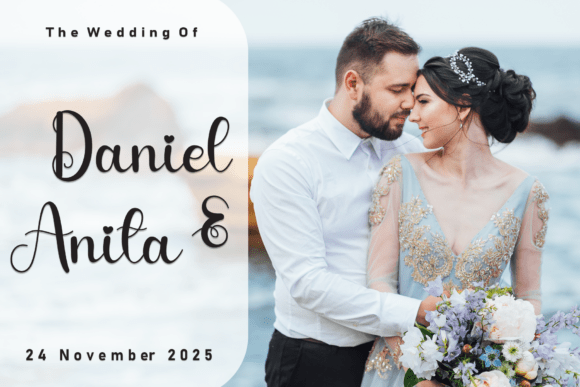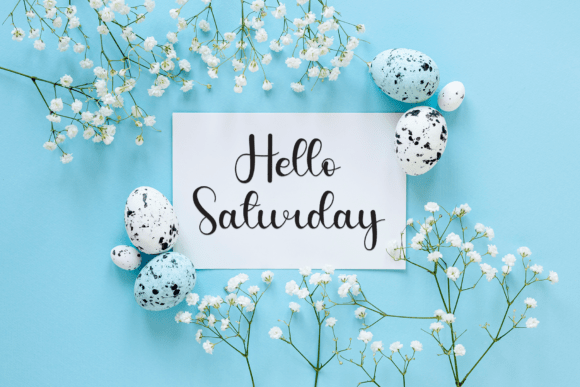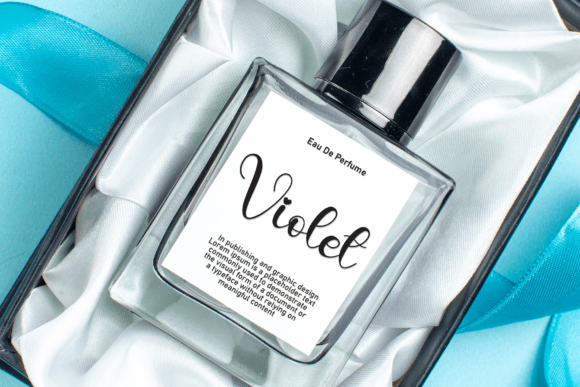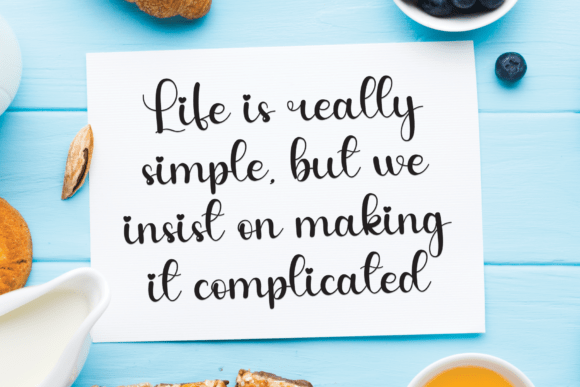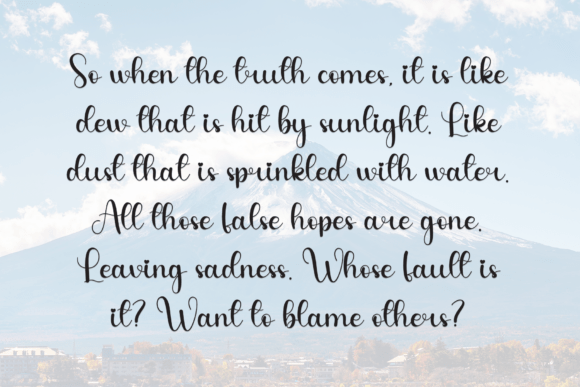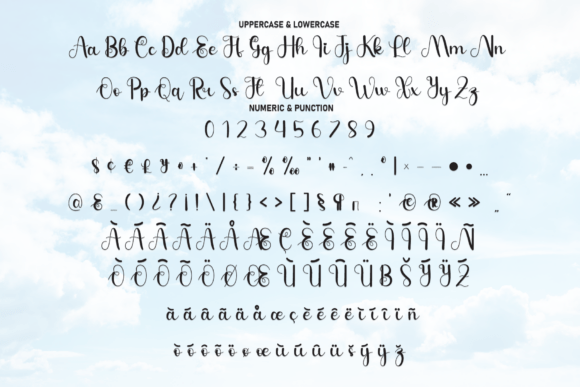
The Magic of Fantasy Font
Have you ever sat down with a blank sheet of paper, a cup of coffee, and a blank mind, waiting for inspiration to strike? For many designers, this is the moment when the creative process truly begins. And for those who love to craft beautiful, handwritten scripts, there’s one font that stands out from the rest: Fantasy Font.
With its flowing strokes and delicate curves, Fantasy Font is a stylish handwritten script font that radiates fresh elegance and charm. Its versatility makes it perfect for invitations, branding, and seasonal designs, where a soft, personal touch is essential. Whether you’re a seasoned designer or just starting out, Fantasy Font is a valuable addition to your toolkit, offering an effortless way to add a touch of whimsy and sophistication to any project.
Fantasy Font Key Features
- Unique Characteristics: The font features intricate, hand-drawn details and a whimsical feel, making it ideal for fantasy and science fiction projects.
- Customization Options: The font family includes a range of alternate glyphs and swashes, allowing designers to add a touch of personality to their work.
Design Review: Fantasy Font
Overall, I’d say the Fantasy Font is an interesting choice for designers looking to add some whimsy to their projects. ✨ The font’s unique blend of medieval and mystical elements can be really effective in creating an immersive experience for users.
- ✨ The font’s high level of detail and texture adds depth and visual interest to text.
- ✨ The font’s versatility allows it to be used in a variety of contexts, from fantasy novels to video game interfaces.
- ✨ The font’s uniqueness can help a project stand out in a crowded market.
- ⚠️ The font’s readability can be compromised in certain situations, such as when used in small sizes or at high resolutions.
- ⚠️ The font’s complexity may make it difficult to pair with other fonts or design elements.
- ⚠️ The font’s unique aesthetic may not be suitable for all projects or audiences.
Overall, I think the Fantasy Font is a great choice for designers who are looking to add some flair to their projects. However, it’s essential to carefully consider the font’s limitations and use it thoughtfully to avoid any potential issues.
Introduction to Fantasy Font
Tips for Getting the Most Out of Fantasy Font
To get the most out of Fantasy Font, experiment with different font sizes, colors, and styles. Use it for titles, headings, and body text to add a touch of magic to your designs.
Fantasy Font is perfect for:
- Designing fantasy-themed graphics and artwork.
- Creating magical and mystical branding materials.
- Adding a touch of whimsy to children’s books and educational materials.
Alternatives to Fantasy Font for Designers
Playfair Display is a high-end, elegant serif font ideal for luxury brands, high-end fashion, and fine dining. It features intricate flourishes and subtle texture, making it perfect for creating a sophisticated and luxurious atmosphere.
Compared to Fantasy Font, Playfair Display is more refined and sophisticated, with a more traditional and classic look. While Fantasy Font is playful and whimsical, Playfair Display exudes luxury and elegance.